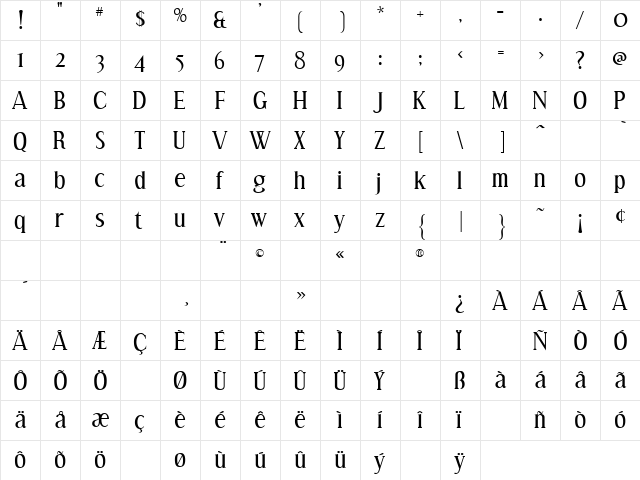
Effloresce Regular
Design Context for Effloresce Typeface
Effloresce offers clean, dependable letterforms without strong stylistic allegiance, making it a practical choice for designers who need flexibility.
Pro Tip: Use Effloresce in both headline and body roles to test its range before committing to a single application.